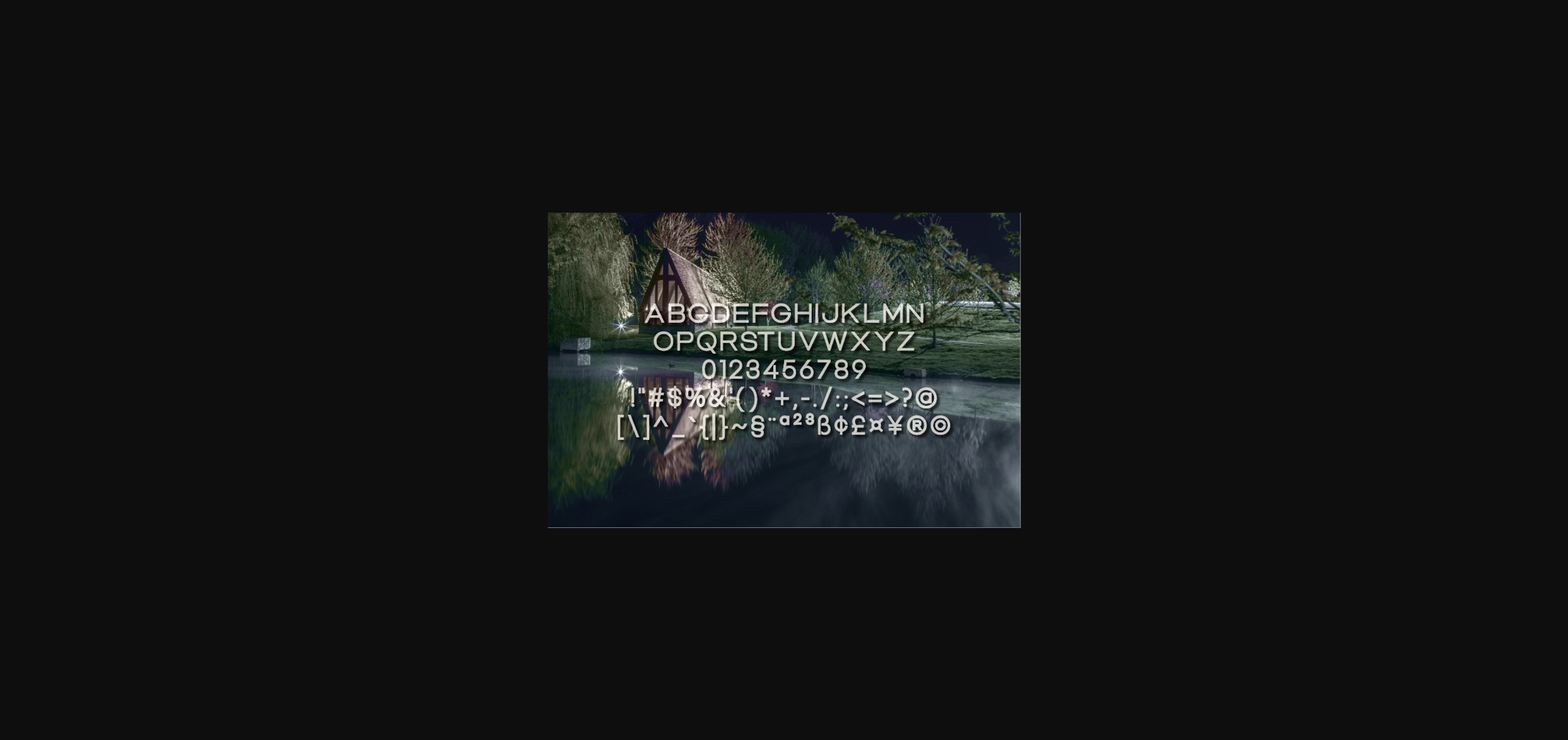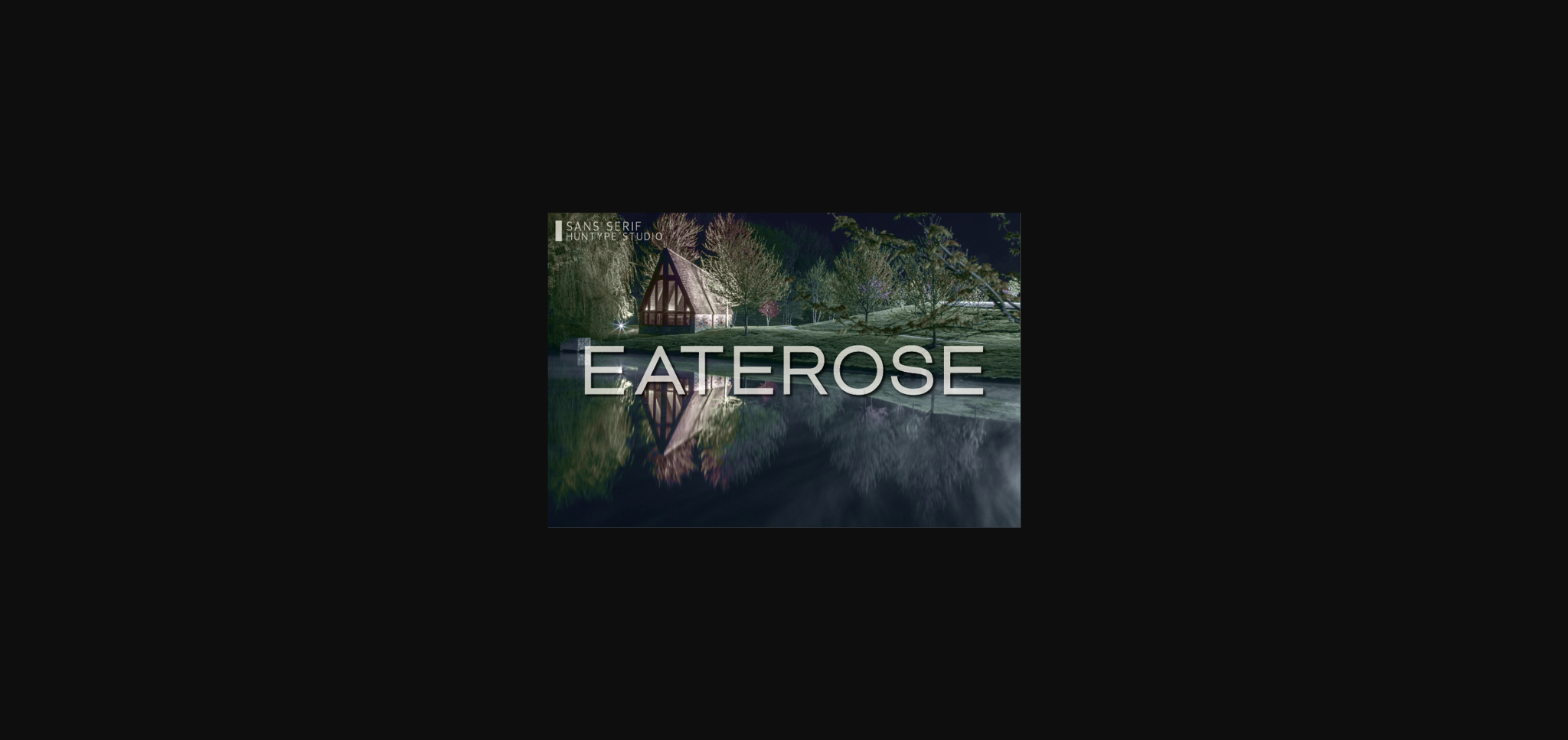
Eaterose Font
About Eaterose Font
Eaterose is a modern sans serif font. It will complement any design need perfectly with its perfectly balanced mix of the smooth and sharp!